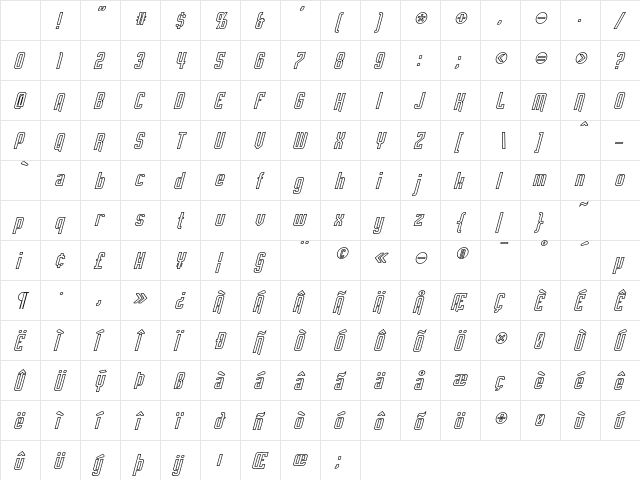
Empanada Outline is built around its visual character rather than neutral utility - its distinctive forms are designed to make an impression at display sizes. The slanted form adds forward momentum and visual energy.
Font Pairing: Pair with a clean neutral sans-serif for body copy to let Empanada Outline's character lead without overwhelming the composition.
Pro Tip: Use Empanada Outline exclusively at display sizes - it was designed to be seen, not read at length. Let a neutral companion handle body copy.